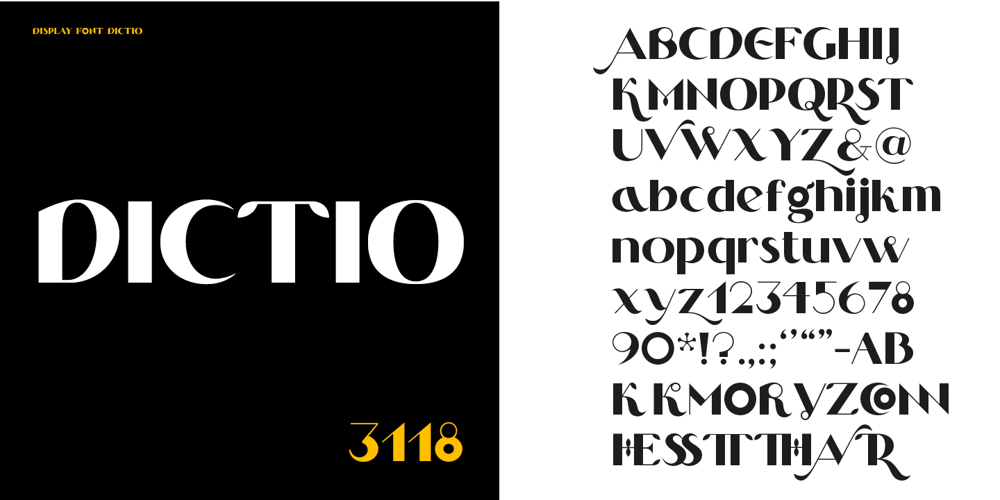
Dictio
Dictio font
Dictio Font Family was designed by Vsevolod Vlasenko and published by Letterhead Studio-VV. Dictio contains 1 styles and family package options. A unique display font with lots of beautiful alternate characters that you can combine to get attractive final lettering with nice and dynamic shapes just in seconds!Dictio will work great in many design forms, for example, Magazines, postcards, logos, Wedding projects, and many more.The idea for the letters came from the typographic examples from the beginning of the century, magazines and book covers.